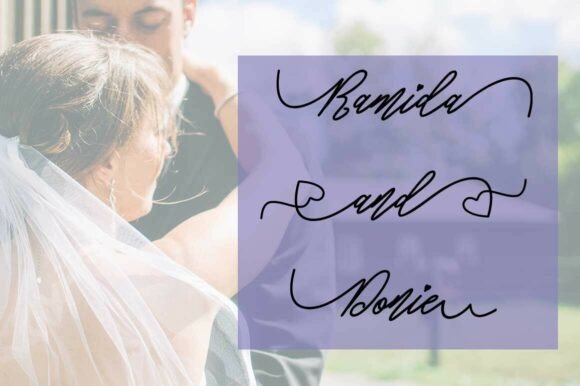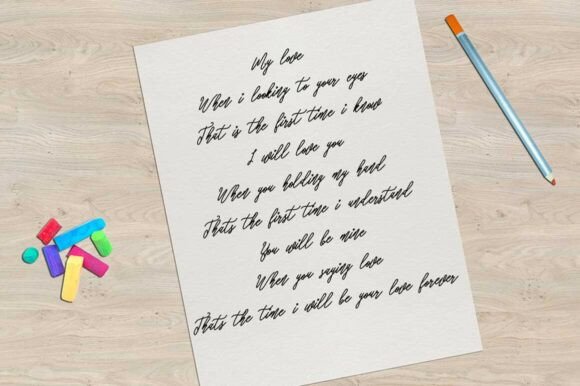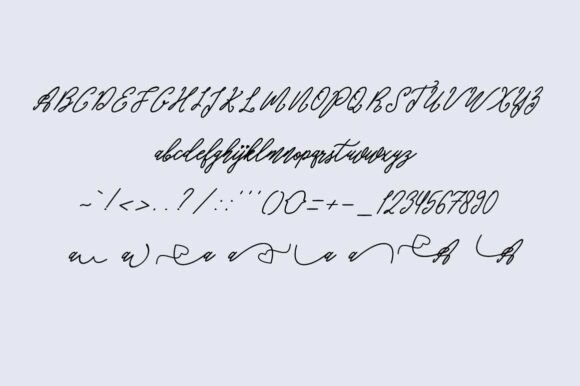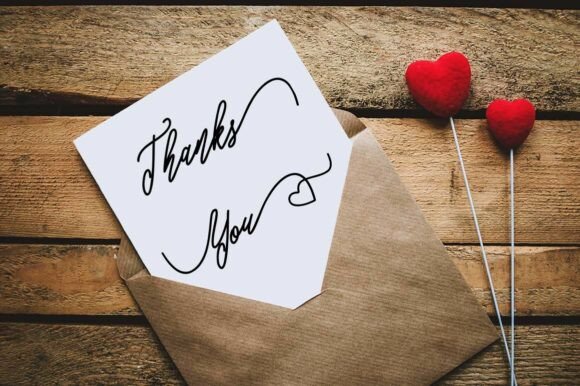
Introduction to Pandaro Font
Pandaro Script New fresh & modern style with handmade calligraphy, decorative characters and dancing lineage.
So wonderful are invitations like greeting cards, branding material, business cards, quotes, posters, and more Pandaro Script The comes with 430 glyphs.